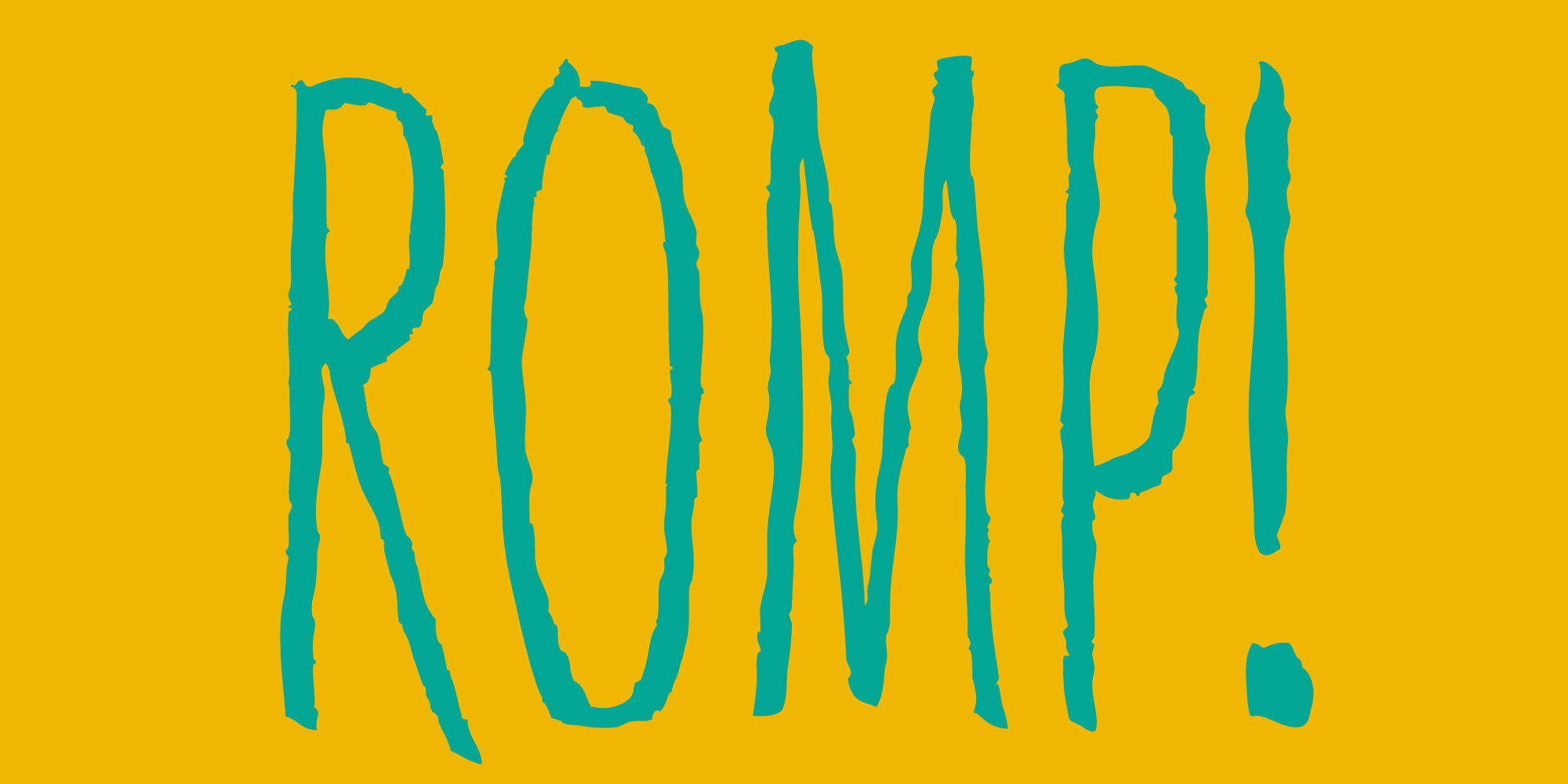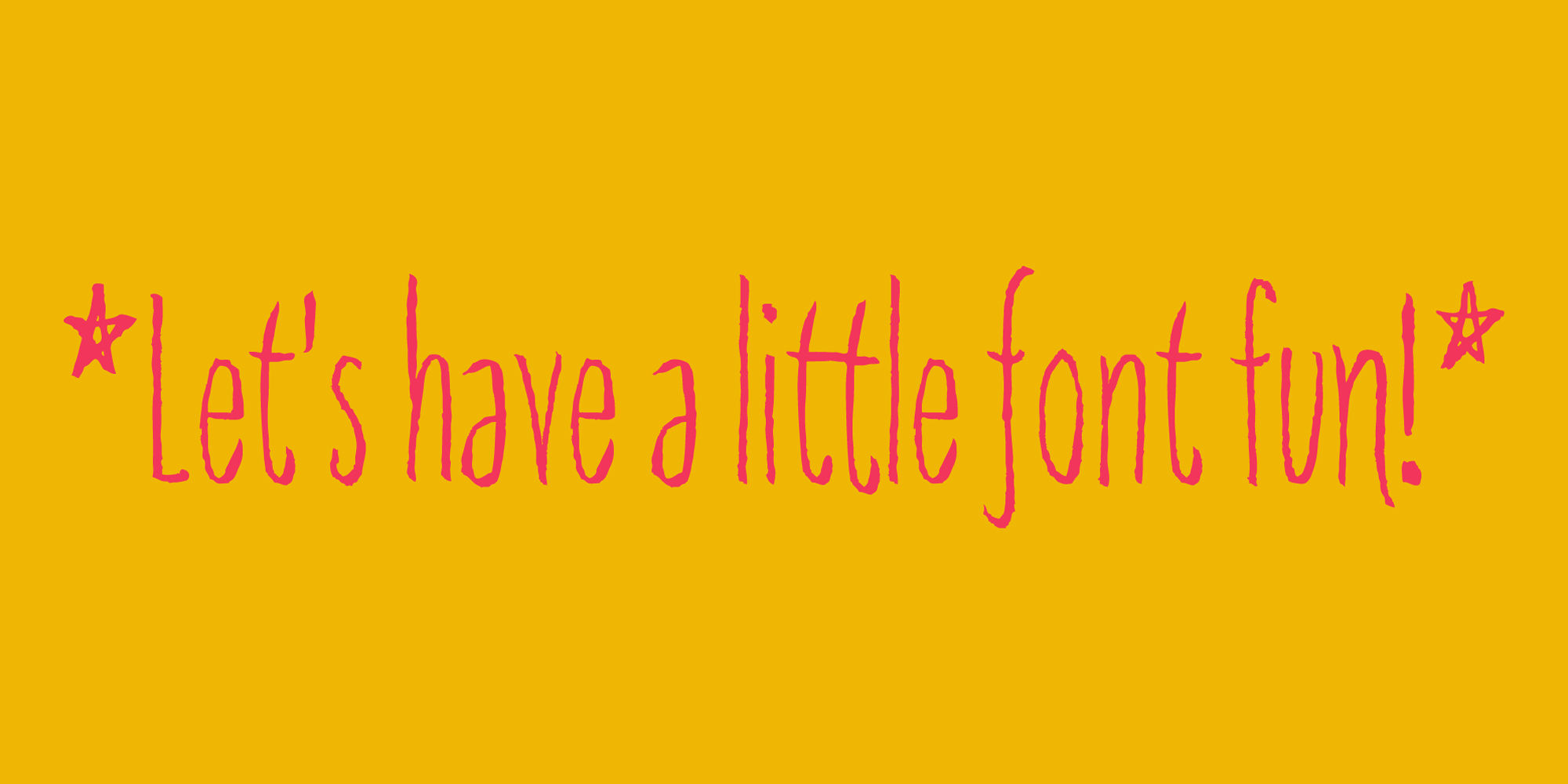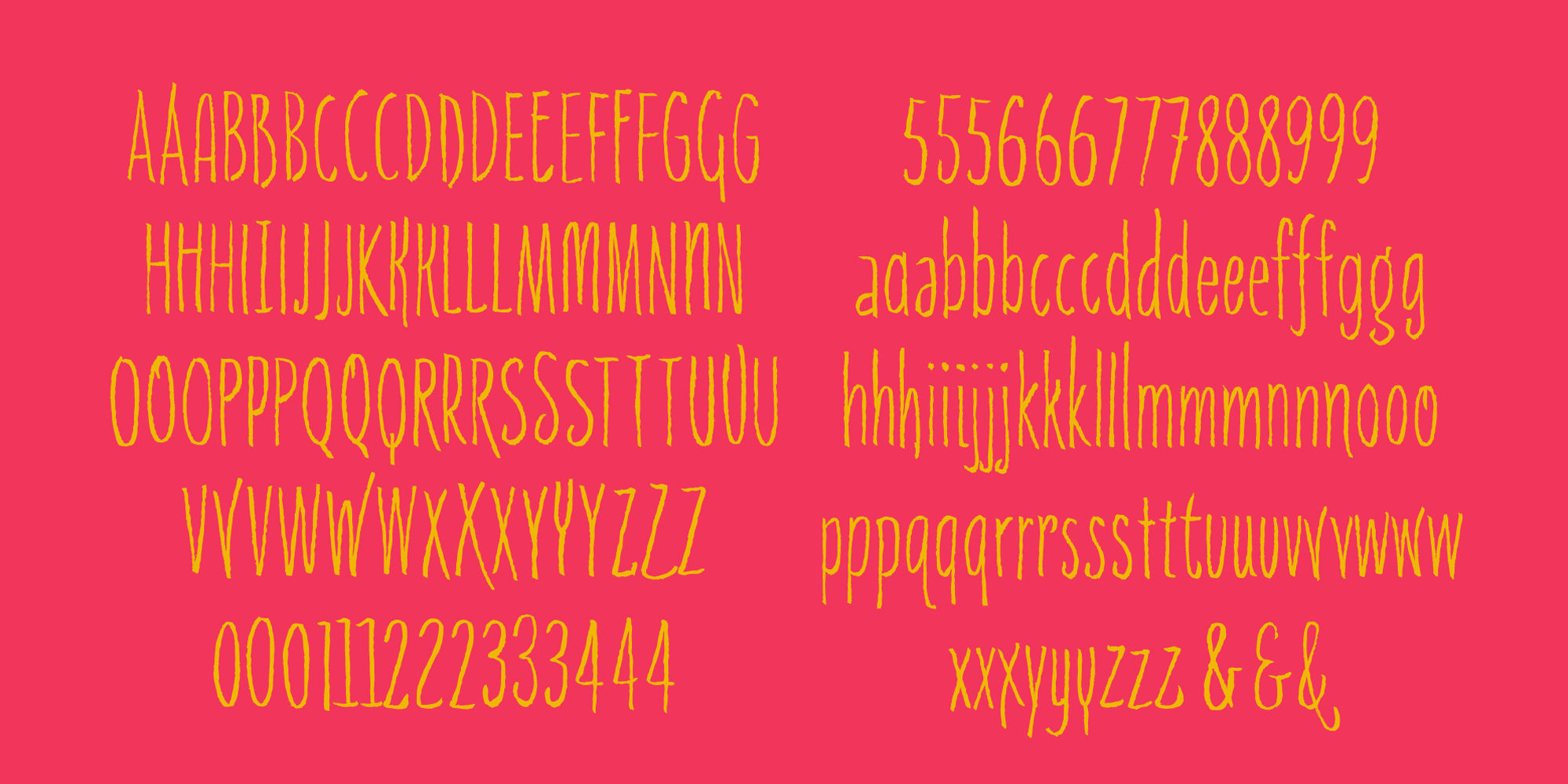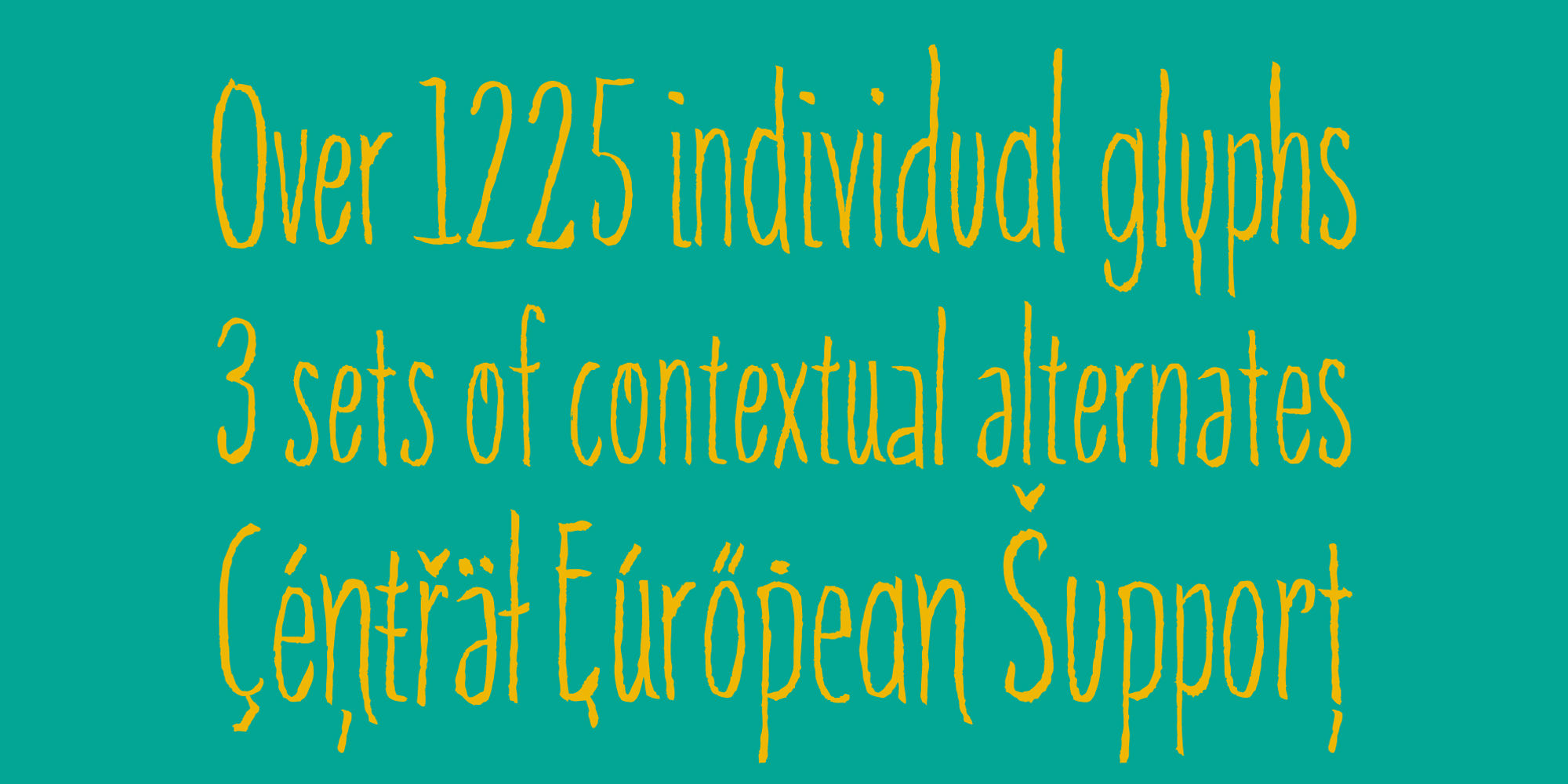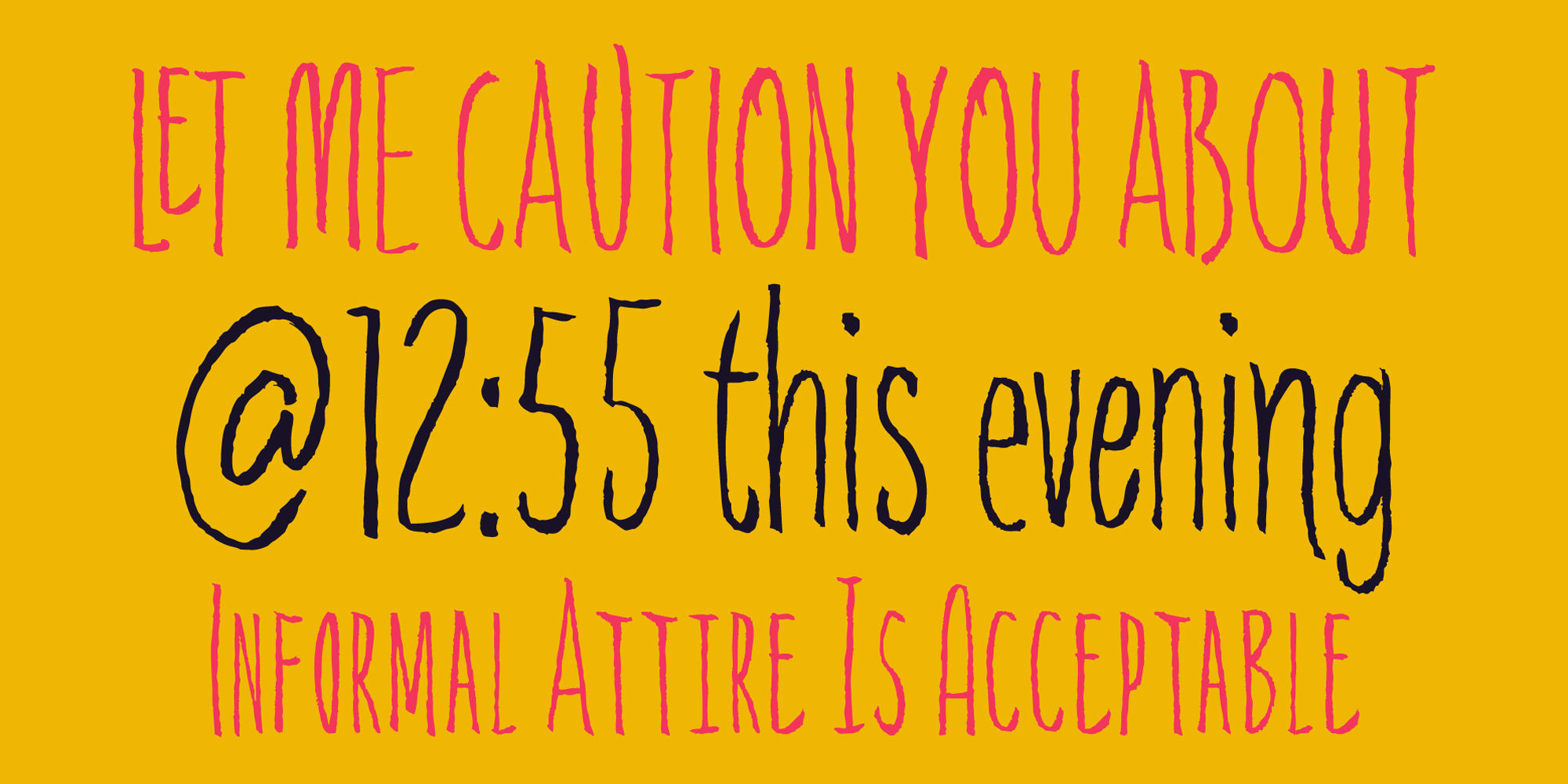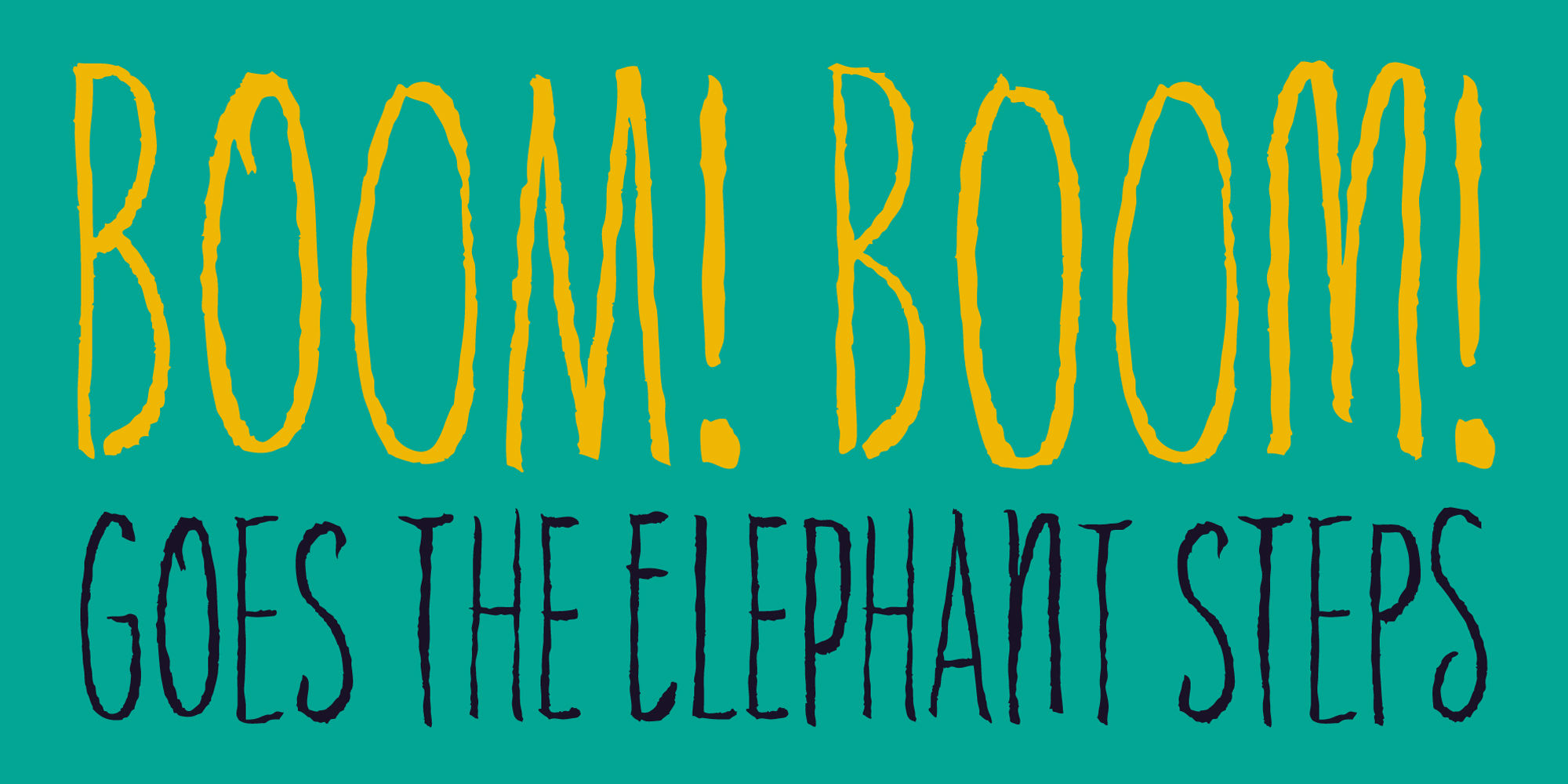
ROMP!
Standard Ligaturesliga
Small Caps
Small Capssmcp
E G L M a b c
Stylistic Set 1ss01
E G L M a b c
Stylistic Set 2ss02
With all ego aside, Romp was designed and influenced by my daughter, Angel. For some time now, she has wanted me to design a font based on her handwriting. But each time I sit down to do it, I run into more that she needs to do and redo. On a recent attempt, I ran into the same situation again. Instead of moving on to something else, I decided to whip out a sumi brush and start making letters...for me, type design is something a little ‘serious’ and never a time to just have fun. This typeface proved that notion wrong—it really was fun. As a result, each letter encouraged another and the design grew...and grew!
The happy result spawned 3 separate sets of letters & numerals (small caps and some ligatures too!). Using the beauty of OpenType, these 3 sets have been fused into one, randomly generating font set.
If you are using any type of OpenType enabled application, then the Romp Pro typeface is the way to go. They include everything found in the 3 separate variants for each style as well as entirely expanding offering of additional small cap and ligature sets.
This typeface contains a total of 357 glyphs